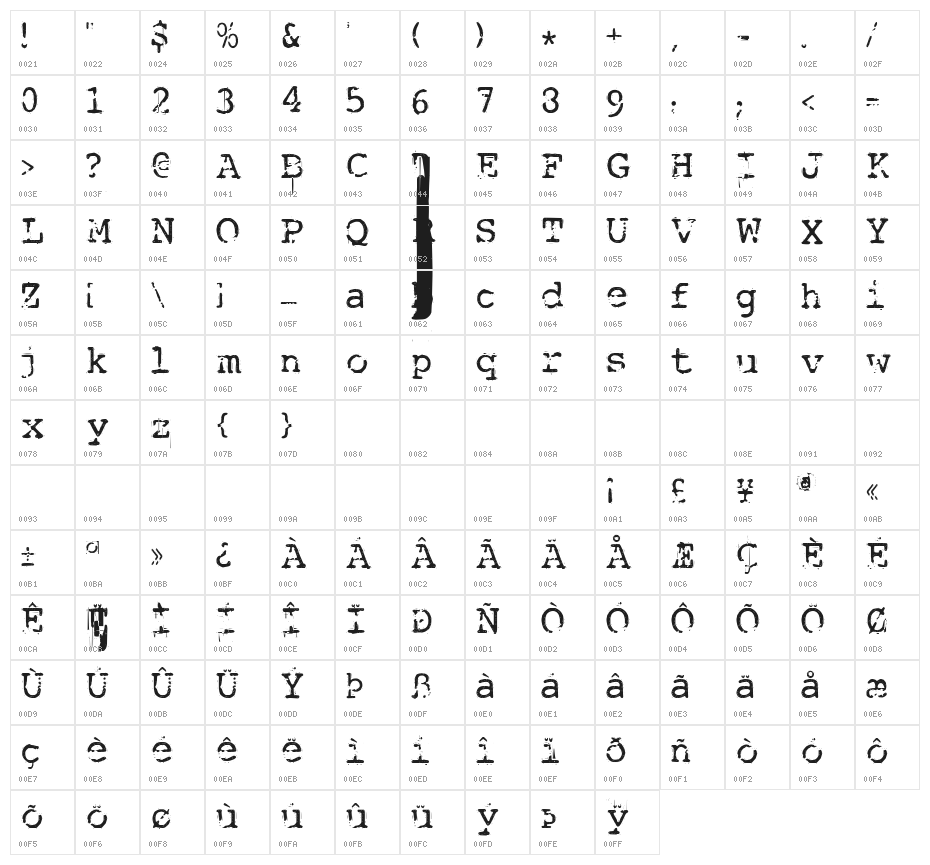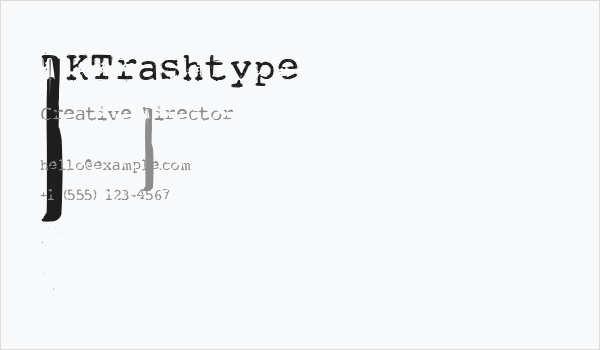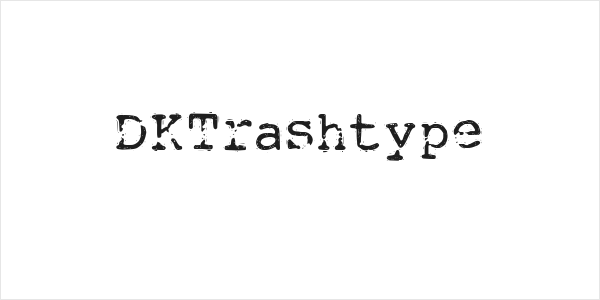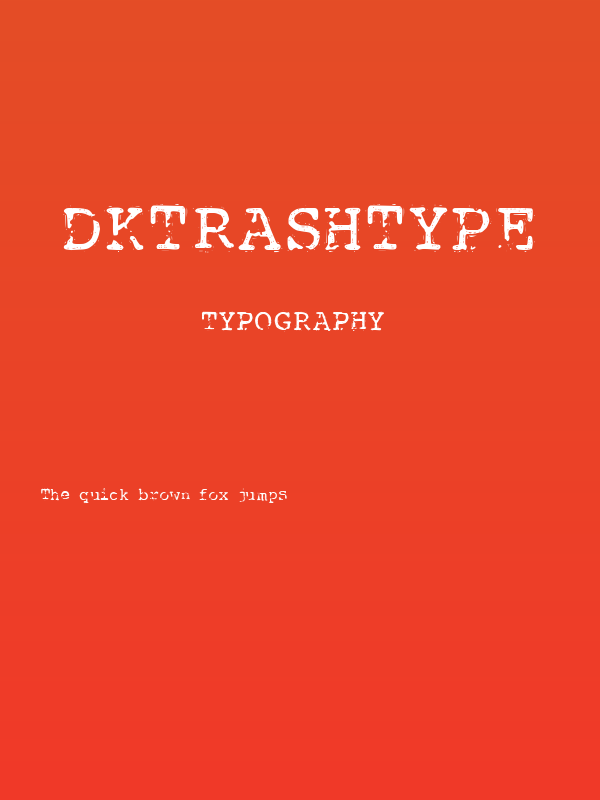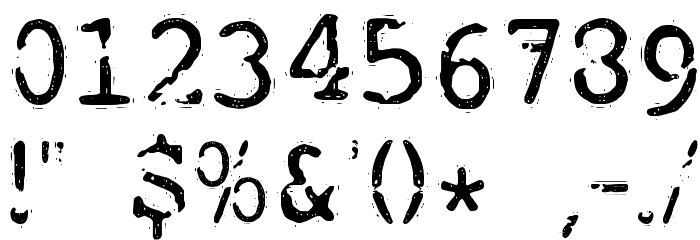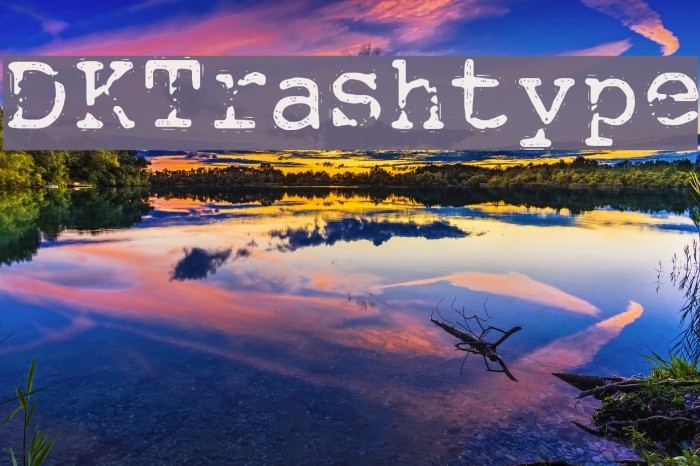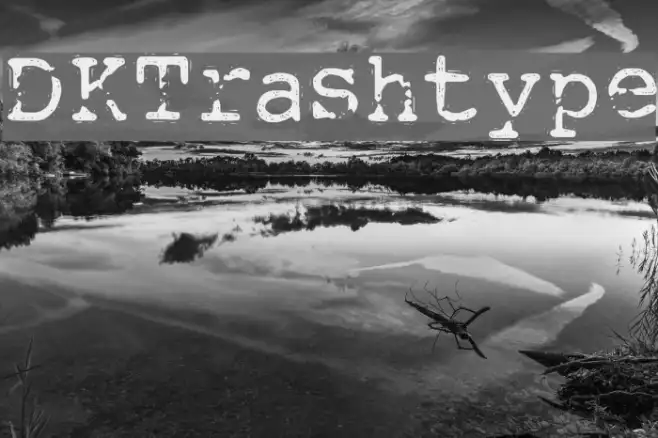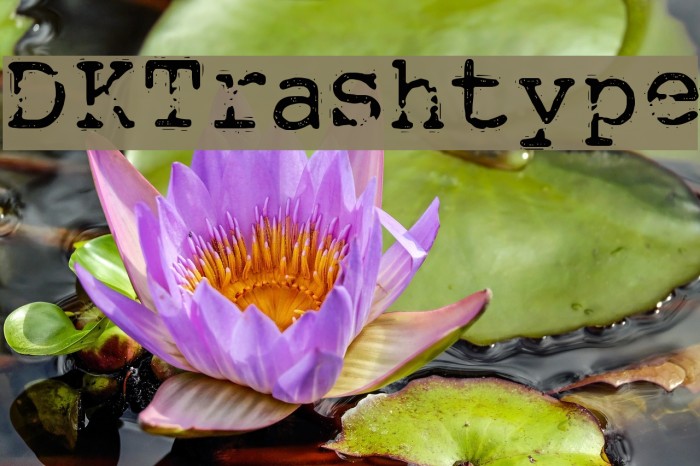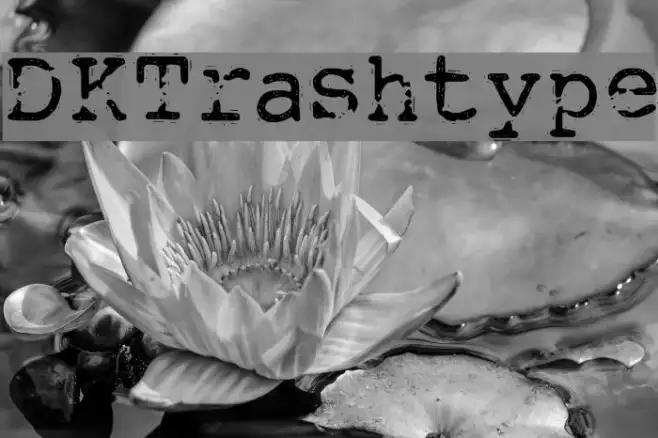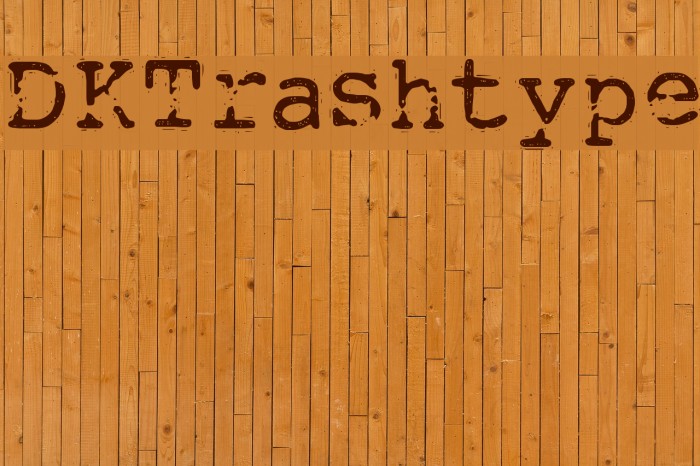
DKTrashtype Font
DKTrashtype Description
This font features a distressed, grunge style that gives the appearance of aged, worn-out typewriter text. The characters are bold with a rough texture, creating a vintage and rugged aesthetic. The uppercase and lowercase letters maintain a consistent style, with irregular edges and a slightly uneven baseline, enhancing the distressed look. Numbers and special characters follow the same design, making them suitable for creative and artistic projects. The font's unique appearance makes it stand out, ideal for designs that require a bold statement or a retro feel.
| Overall Style | Vintage, Grunge |
| Use Case | Headlines, Logos, Artistic projects |
| Proposed Projects | Ideal for posters, album covers, vintage-themed designs, and artistic projects requiring a bold, rugged look. |